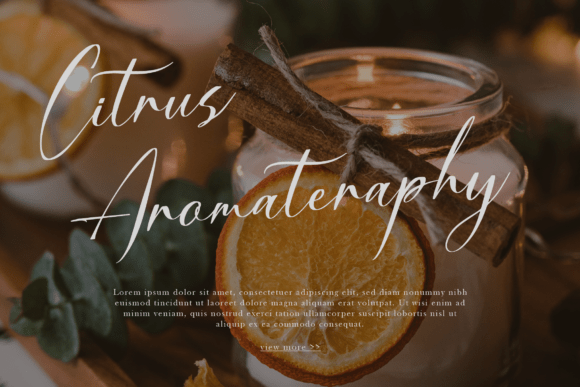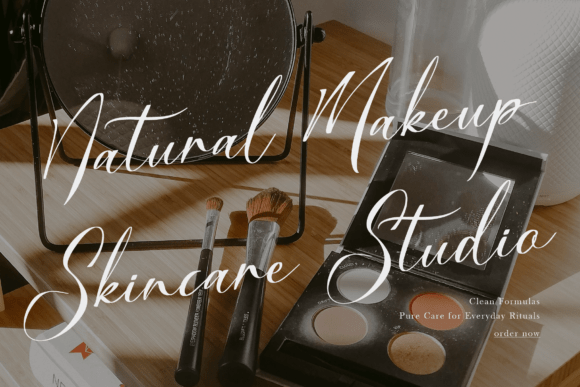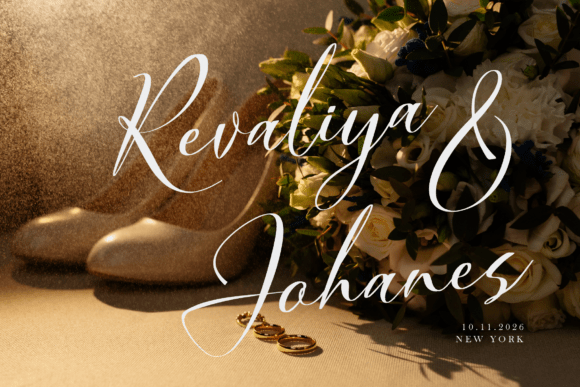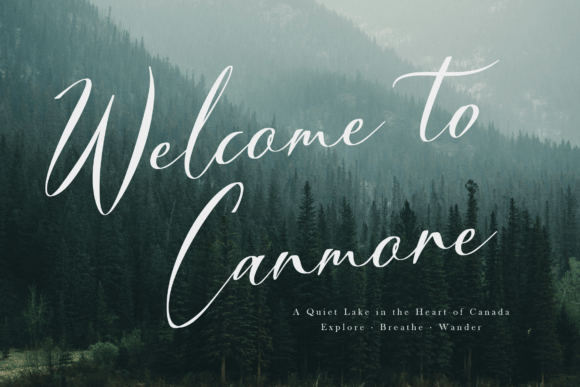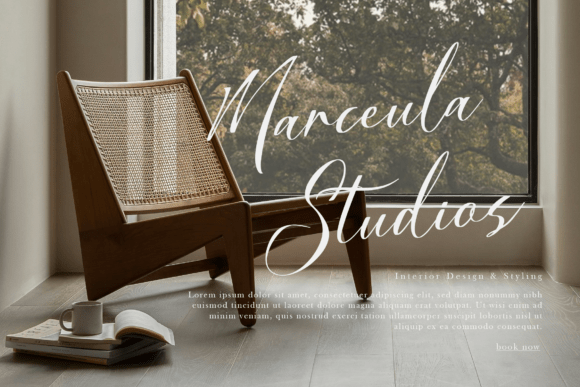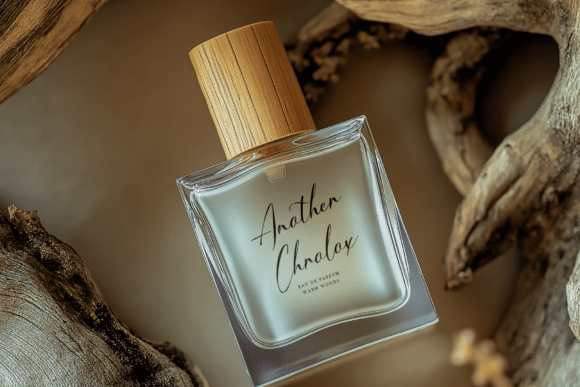
Exude Sophistication and Grace with Dialmeray Font
In the world of typography, few fonts manage to convey the essence of luxury and elegance as effortlessly as Dialmeray. This stunningly elegant calligraphy script is designed to bring a touch of high-end sophistication to any design project, from wedding stationery to luxury packaging. With its fluid, sweeping strokes and delicate ligatures, Dialmeray captures the essence of handmade ink-on-paper artistry, adding a personal, human touch to any design.
The Art of Elegance: Dialmeray’s Design
Dialmeray’s design is a masterclass in elegance. Each letter is carefully crafted to create a sense of fluidity and movement, as if written with a fine pen or brush. The font’s sweeping strokes and delicate ligatures evoke the feeling of handmade artistry, imbuing any design with a sense of luxury and refinement. Whether used for a boutique logo, a heartfelt invitation, or a luxury brand’s packaging, Dialmeray adds a layer of refined beauty that is impossible to ignore.
Ideal for Wedding Stationery and Feminine Branding
Dialmeray is an ideal companion for wedding stationery, feminine branding, or luxury packaging where a personal, human touch is required. The font’s elegant design and refined beauty make it perfect for creating bespoke wedding invitations, elegant stationery, and sophisticated branding materials. For designers and crafters looking to create unique and eye-catching designs, Dialmeray is an excellent choice.
Pairing Dialmeray with Other Fonts
To create a balanced layout that feels both timeless and modern, pair Dialmeray with a light, airy serif font. This classic combination allows the elegance of Dialmeray to shine while providing a subtle contrast that adds depth and interest to the design. The result is a harmonious and sophisticated visual identity that is sure to impress.
PUA-Encoded for Effortless Access
Dialmeray is PUA-encoded, allowing effortless access to all glyphs, swashes, and alternate characters. This means that designers and crafters can easily access the font’s full range of features, including ligatures, swashes, and stylistic alternates, making it easy to create unique and customized designs.
- Elegant Calligraphy Script: Dialmeray’s fluid, sweeping strokes and delicate ligatures evoke the feeling of handmade ink-on-paper artistry.
- Luxury and Sophistication: Perfect for high-end luxury branding, wedding stationery, and feminine packaging.
- PUA-Encoded: Effortless access to all glyphs, swashes, and alternate characters.
- Pairs Well with Serif Fonts: Create a balanced layout with a light, airy serif font.
Dialmeray font is a stunningly elegant calligraphy script designed to bring a touch of high-end sophistication to any design project. With its fluid, sweeping strokes and delicate ligatures, this typeface captures the essence of handmade ink-on-paper artistry. Whether used for wedding stationery, feminine branding, or luxury packaging, Dialmeray adds a layer of refined beauty that is impossible to ignore. By pairing it with a light, airy serif font and taking advantage of its PUA-encoded features, designers and crafters can create unique and eye-catching designs that exude sophistication and grace.